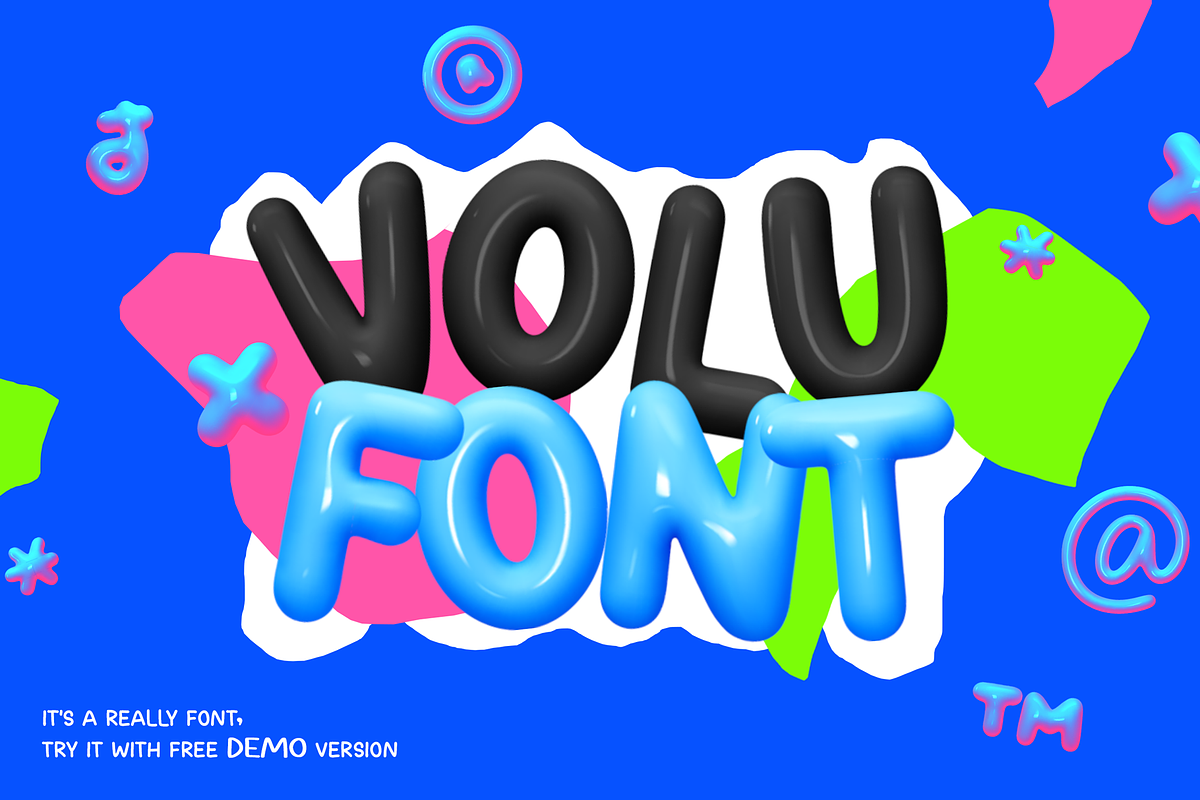
VOLUFONT 3D OTF SVG Fonts Free Download is a vibrant and eye-popping typeface collection designed to bring depth, texture, and realism to your typography. As an OTF SVG font, VOLUFONT offers rich, high-resolution details with stunning 3D effects—perfect for posters, digital art, album covers, event promotions, and bold branding.
Whether you're going for a bold digital look or a modern-retro vibe, VOLUFONT brings instant dimension and creativity to your type. It’s a powerful tool for turning ordinary text into eye-catching art.